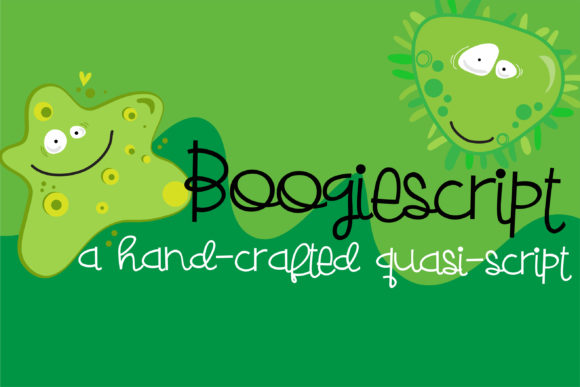
The Boogiescript Font: A Whimsical Companion for Your Design Projects
I’ll never forget the time I was working on a project for a client who wanted a playful, hand-crafted look for their branding. I spent hours scouring the internet for the perfect font, but nothing seemed quite right. That was until I stumbled upon the Boogiescript Font. With its stiffly upright lettering and whimsical feel, it was love at first sight! In this article, I’ll share my experience with this charming font, its features, and how to make the most of it in your design projects.
- ✨ Unique, hand-crafted look that’s perfect for creative projects
- ✅ Coordinates well with its sister font, ZP Boogieman, for a cohesive look
- 🎉 Whimsical feel that’s sure to add a touch of personality to your designs
- 💻 Highly legible, even at smaller font sizes
While the Boogiescript Font is an excellent choice for many projects, there are a few things to keep in mind:
- 🤔 Limited use of flourishes and swashes, which may not be suitable for all design styles
- ⚠️ May not be the best choice for very formal or traditional designs
The Story Behind Boogiescript Font
The Boogiescript Font was designed with the intention of creating a unique, hand-crafted look that’s both playful and legible. Its creator aimed to craft a font that would add a touch of personality to designs, while still being versatile enough to work in a variety of contexts. The result is a font that’s perfect for creative projects, such as branding, packaging, and stationery.
Q: What is the Boogiescript Font best suited for?
A: The Boogiescript Font is ideal for creative projects, such as branding, packaging, and stationery, where a playful, hand-crafted look is desired.
Q: Is the Boogiescript Font suitable for body text?
A: While the Boogiescript Font is highly legible, it’s best suited for headings and titles. For body text, a more traditional font may be more suitable.
Q: Can I use the Boogiescript Font with its sister font, ZP Boogieman?
A: Absolutely! The Boogiescript Font and ZP Boogieman were designed to work well together, creating a cohesive look for your designs.